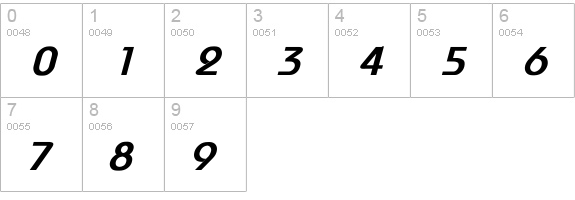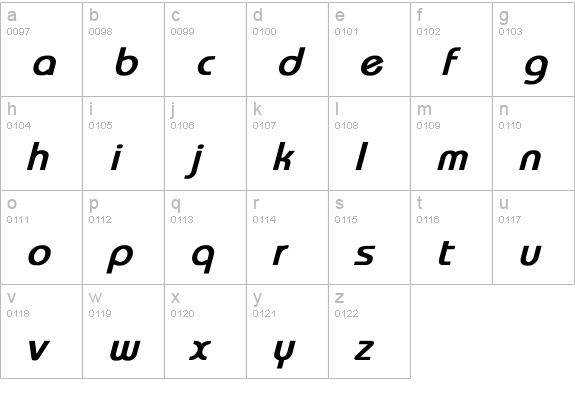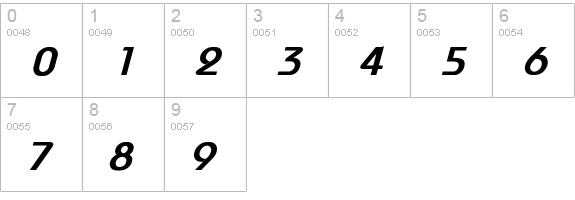
Cooline Bold Italic Font Details
Cooline Bold Italic is a strong, high-contrast, italic variant in the Cooline typeface family \xE2\x80\x94 well suited to headlines, attention-grabbing titles, and strong calls-to-action.
Cooline Bold Italic font is a stylish and modern typeface that exudes confidence and sophistication. Its sleek lines and elegant curves make it perfect for adding a touch of flair to any design project. The bold italic style of Cooline font commands attention and adds a sense of drama to your text. What makes Cooline Bold Italic font even more appealing is that it is available for free download at FontsMarket.com. This means that you can easily access this high-quality font without any cost, making it a valuable addition to your font collection. Whether you are designing a poster, logo, or website, Cooline Bold Italic font will help you make a bold statement and stand out from the crowd. Don't miss out on the opportunity to enhance your designs with the striking Cooline Bold Italic font, now available for free at FontsMarket.com. Download it today and unleash your creativity with this eye-catching typeface.